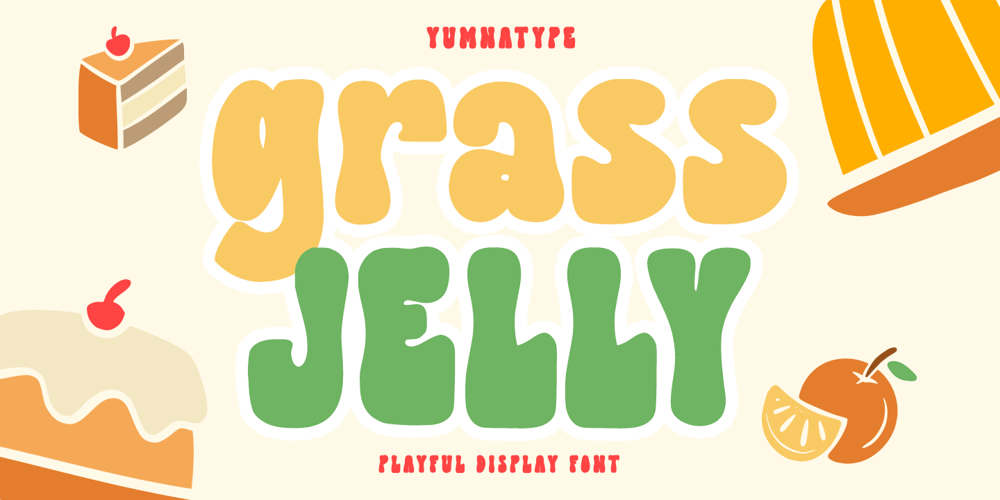
Grass Jelly Font Family was designed by Donis Miftahudin and published by Yumna Type. Grass Jelly contains 2 styles and family package options. Are you looking for a firm, prominent font for your design? Have a try on our unique, eye-catching display font. This is Grass Jelly, a somewhat circled display font to produce artistic, creative, fun nuances. It has thick, strong contrast lines to attract attention and to leave a strong impression for big text sizes to be easily legible. In addition, you can enjoy the available features here.Features: Multilingual Supports PUA Encoded Numerals and Punctuations Grass Jelly fits best for various design projects, such as brandings, posters, banners, headings, magazine covers, quotes, printed products, merchandise, social media, etc. Find out more ways to use this font by taking a look at the font preview.Thanks for purchasing our fonts. Hopefully, you have a great time using our font. Feel free to contact us anytime for further information or when you have trouble with the font. Thanks a lot and happy designing.